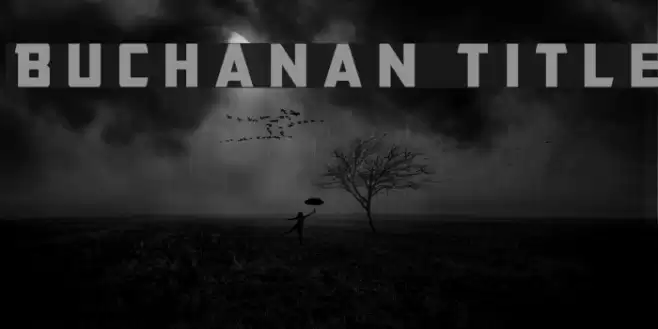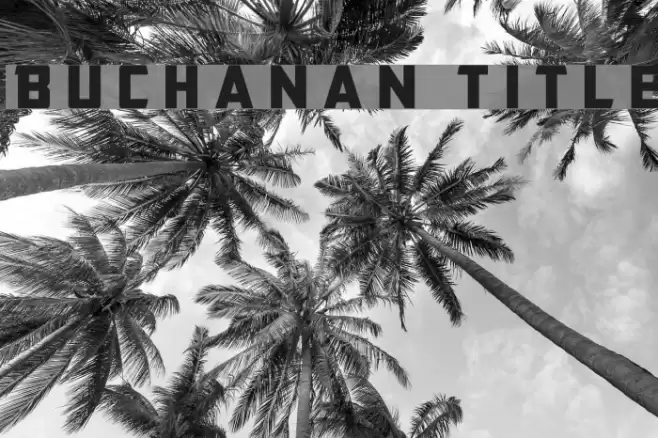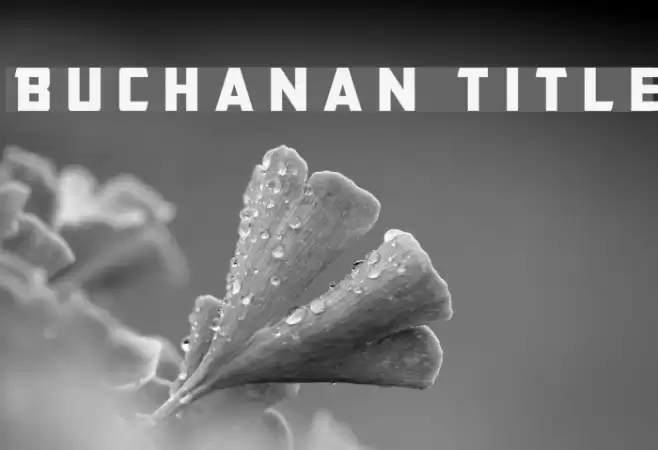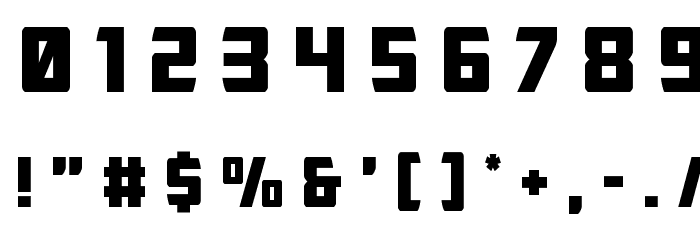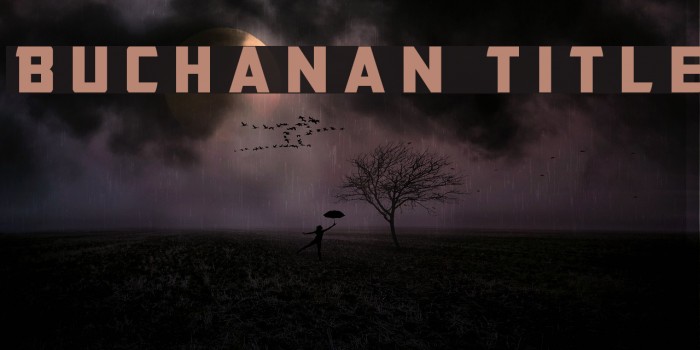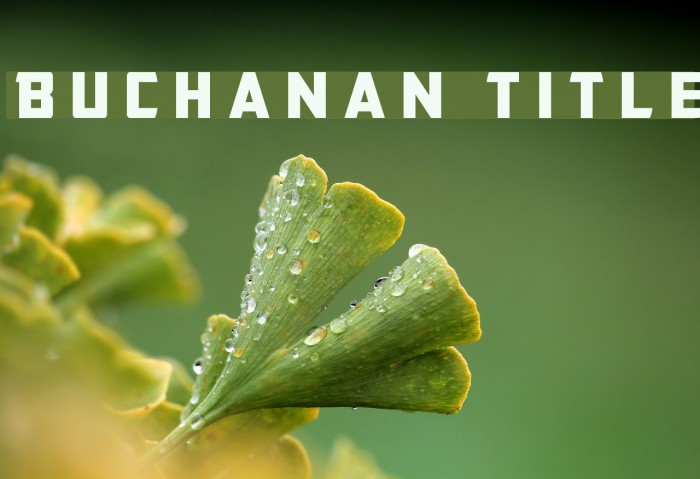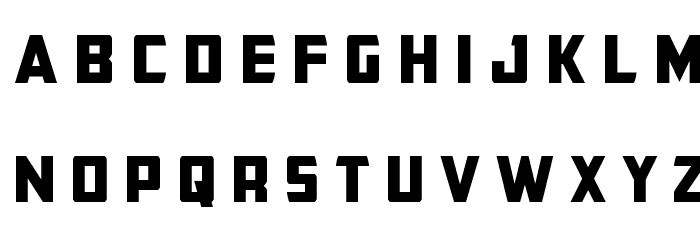
Buchanan Title Font
Buchanan Title Description
This font features bold, geometric letterforms with a strong, industrial aesthetic. The characters are blocky and angular, with consistent stroke widths that give it a uniform appearance. The uppercase and lowercase letters maintain a similar structure, enhancing its cohesive look. The numerals and special characters are designed to match the boldness and geometric style of the alphabet, making it suitable for impactful and attention-grabbing designs. The overall style is modern and assertive, ideal for projects that require a strong visual presence.
A bold, geometric font with an industrial and modern aesthetic from Uncategorized fonts.
- Proposed Projects: Ideal for branding, posters, headlines, and any design that requires a strong, modern look.